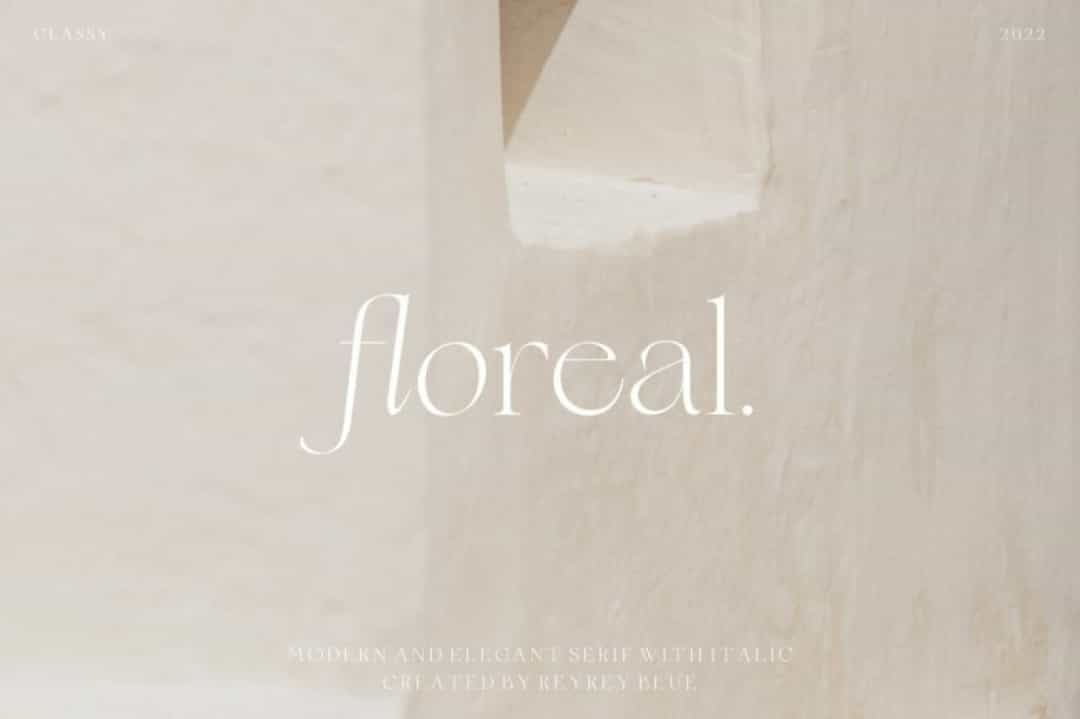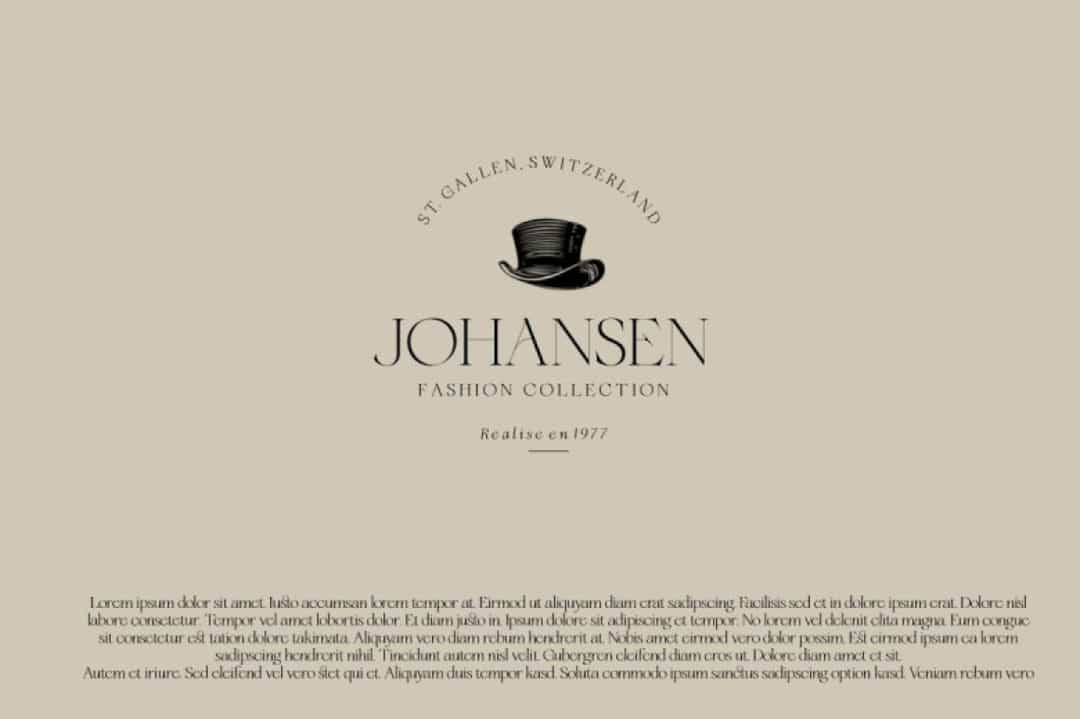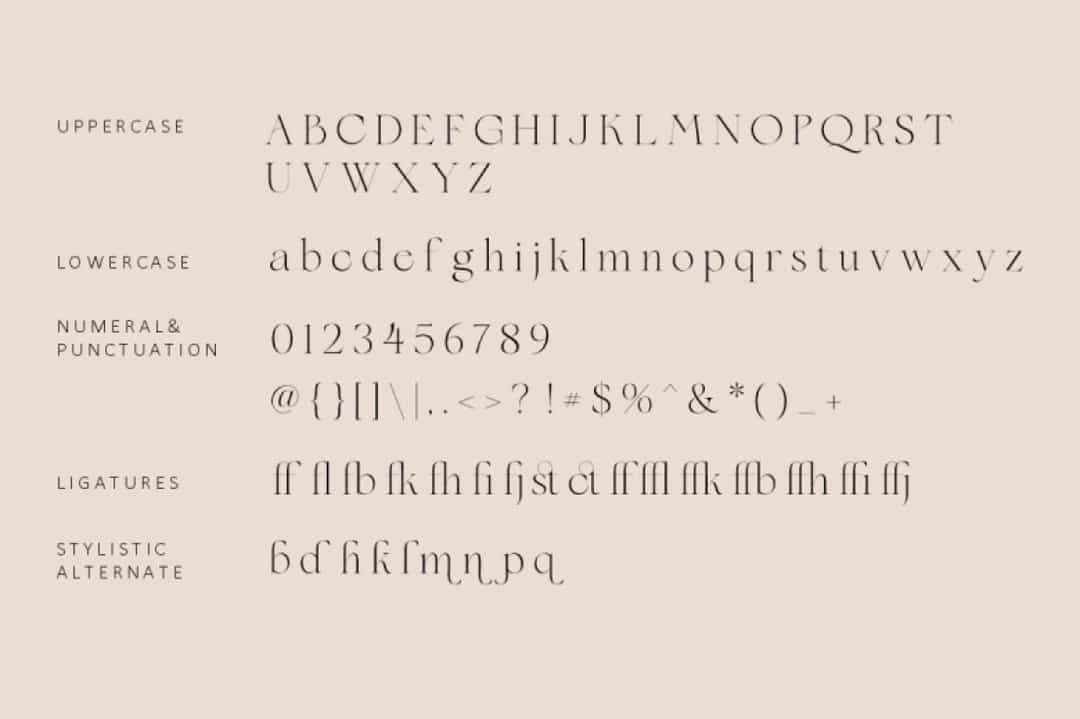
Floreal Italic font style is a stylish modern font with sophisticated accents. Available in both normal and genuine Italic variants, this font comes with alternative fonts as well as the option of ligatures to give your work its unique style and character.